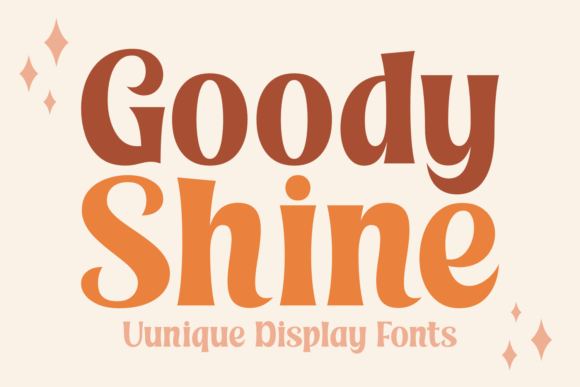
In a world overflowing with digital clutter, visual impact reigns supreme. To captivate your audience and leave a lasting impression, you need a font that speaks volumes, a font that dances across the screen, commanding attention like a magnet. Enter Goody Shine, the enchanting display font that transforms ordinary designs into masterpieces.
Goody Shine's thick, softly curved characters exude an alluring charm, beckoning your audience to delve deeper into your message. Let your headlines dance, your posters burst with vibrancy, and your covers radiate sophistication. With Goody Shine, you'll create crafting projects that are as unique as your imagination.
This display font is not just a collection of letters; it's an artistic expression that breathes life into your words. Elevate your branding, make your presentations shine, and give your social media posts an irresistible allure. Goody Shine is the perfect font for those who dare to stand out, who refuse to blend into the background.
With Goody Shine, you'll craft designs that resonate, that linger in the minds of your audience long after they've left your page. Its effortless elegance will transform your creative projects into works of art, leaving an indelible mark on your customers.
So why settle for ordinary when you can unleash the extraordinary? Embrace Goody Shine, the display font that will ignite your creativity and propel your designs to new heights. Join the ranks of those who understand the power of visual impact and watch as your projects shine brighter than ever before.